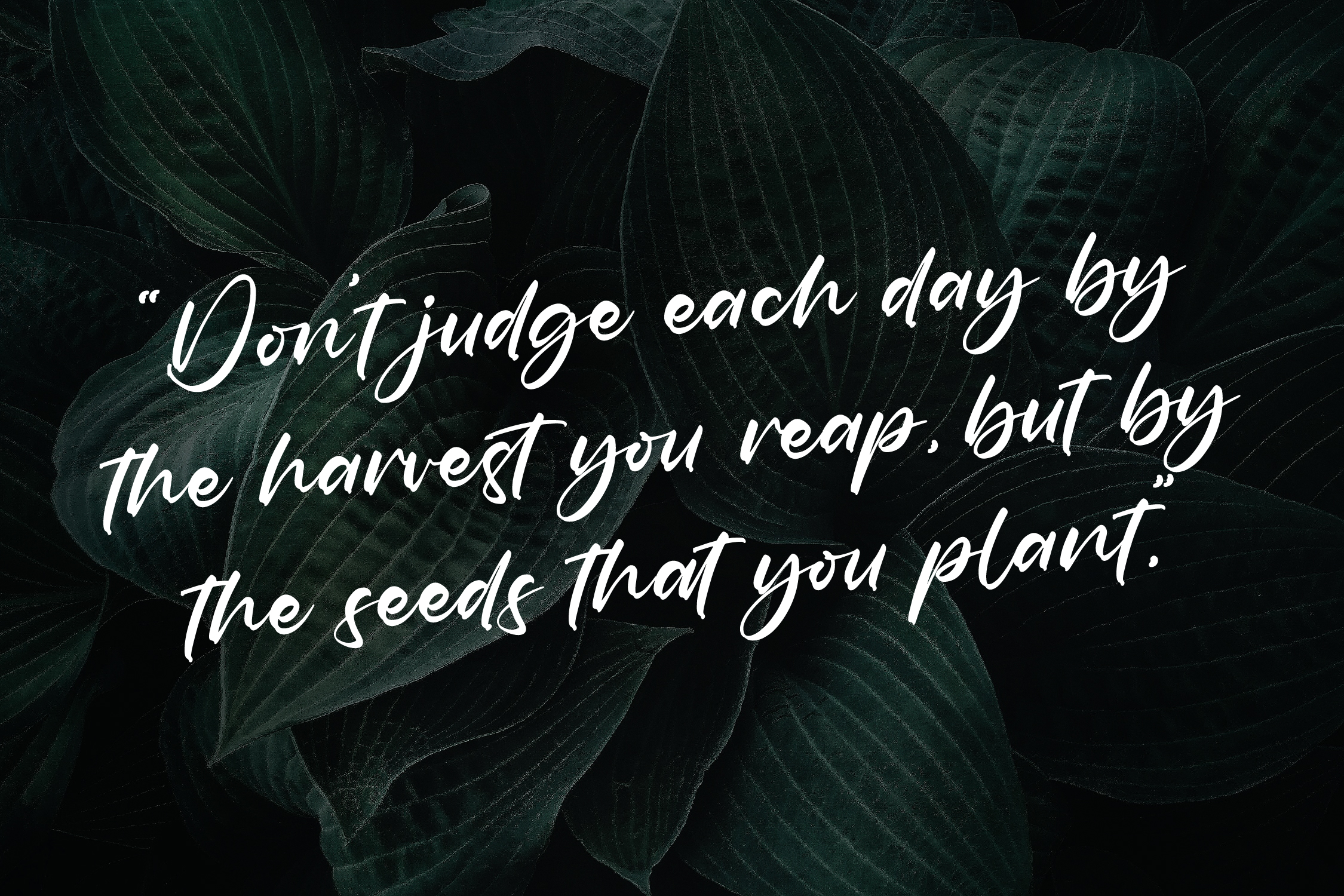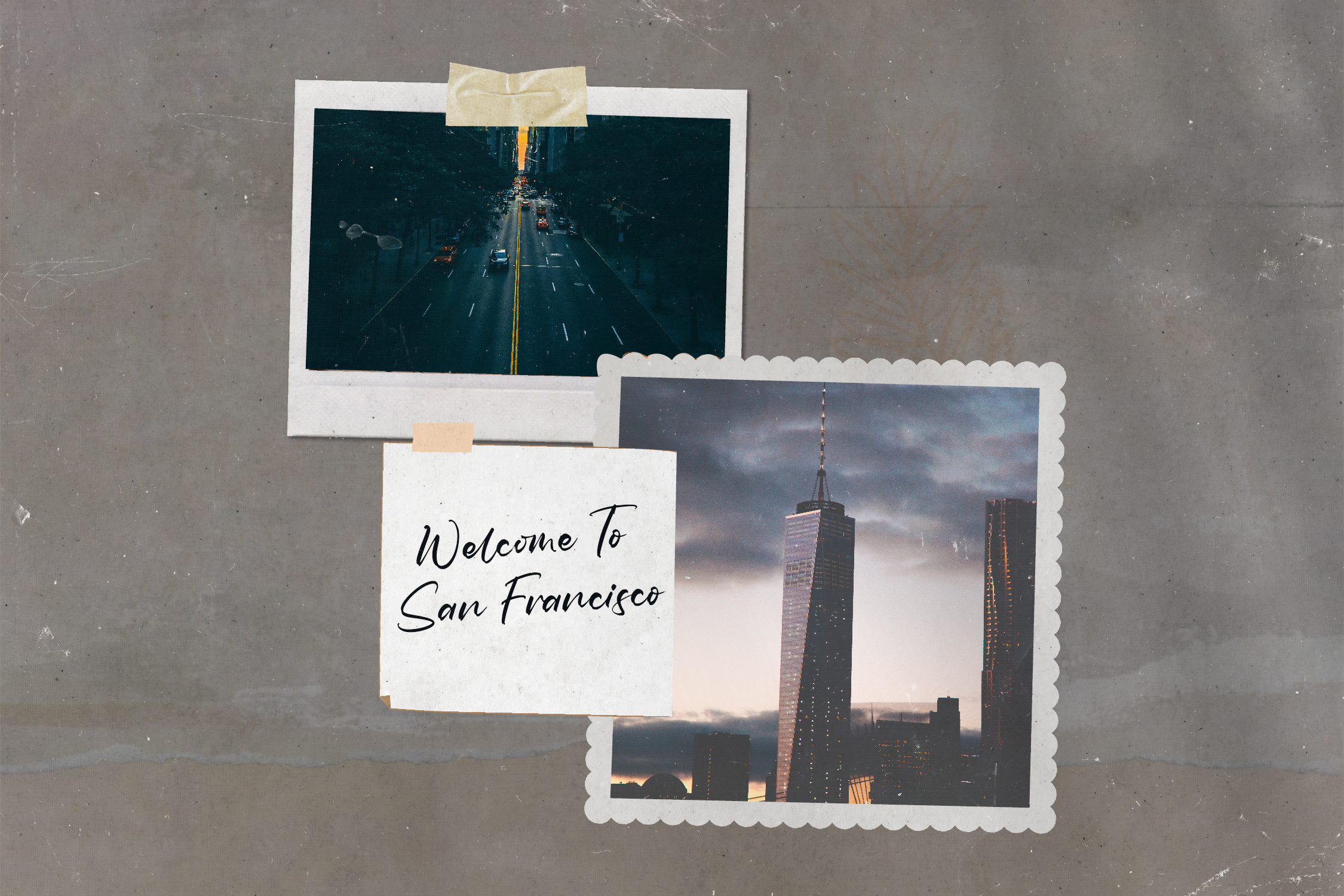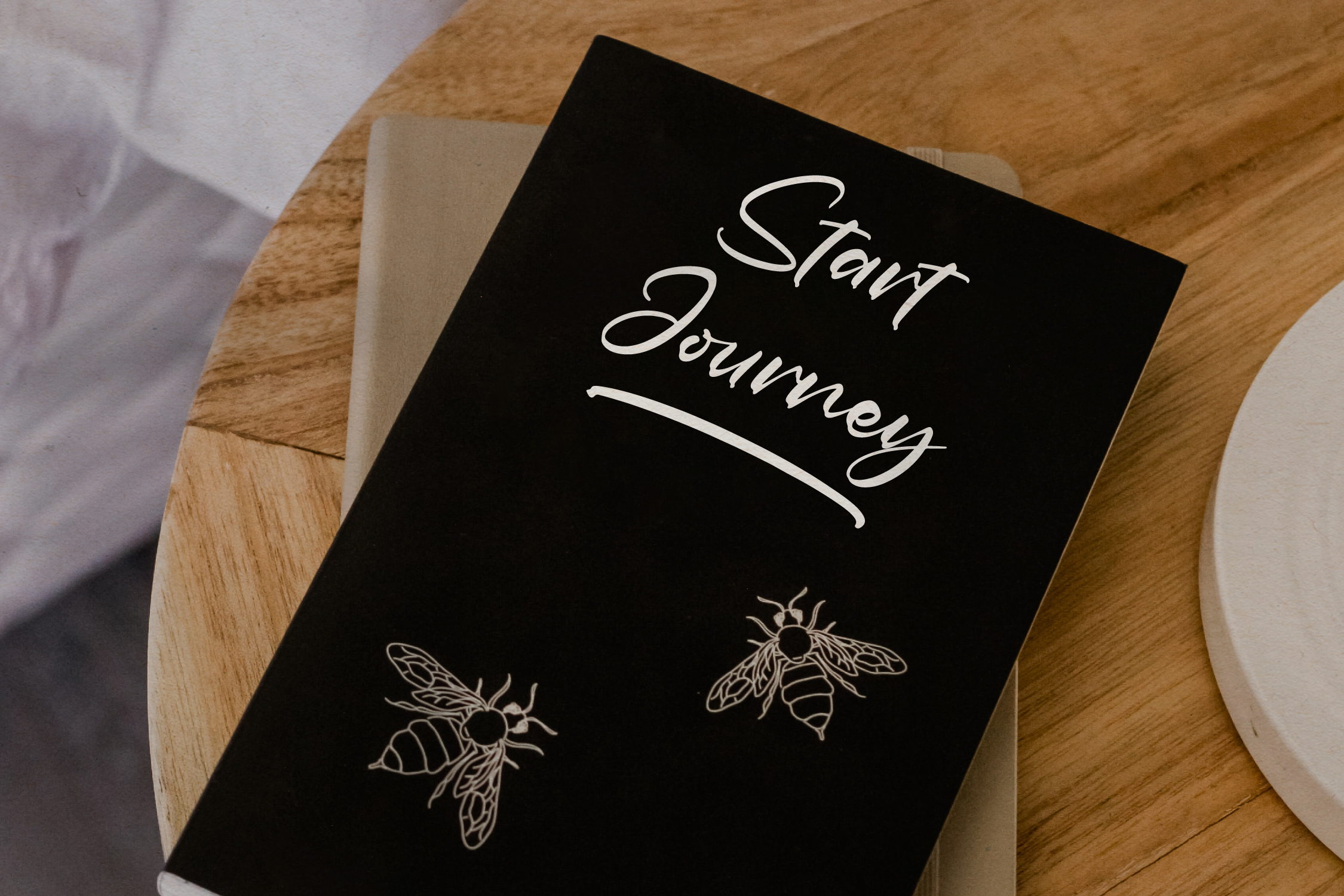
Falatisco – Modern Brush Script Font
Falatisco – Modern Brush Script Font, from Glorytype Studio, is a beautiful script font, suitable for any projects such as: logos, branding projects, homeware designs, product packaging, mugs, quotes, posters, shopping bags, t-shirts, book covers, name card, invitation cards, greeting cards, label, photography, watermark, special events, and all your other lovely projects that need a beautiful script taste.